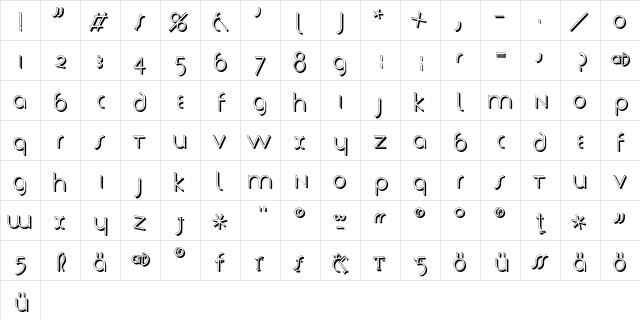
TschicholdsShades Regular
Design Context for TschicholdsShades Typeface
TschicholdsShades is a composed and adaptable typeface that performs quietly and consistently across a wide range of design contexts.